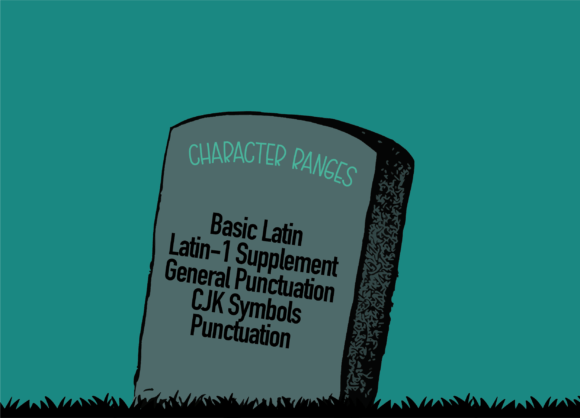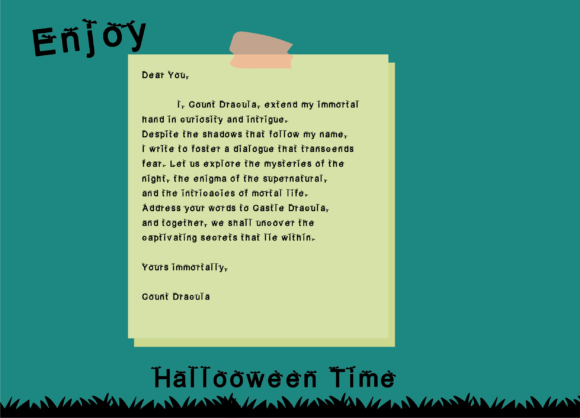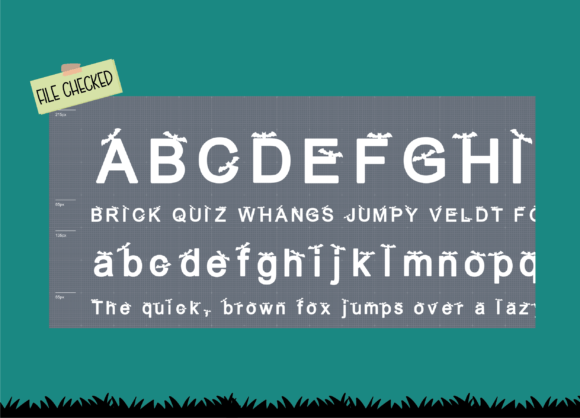
Spooky Fonts for a Killer Design
As the sun sets on a crisp autumn evening, the moon casts an eerie glow over the landscape, and the creatures of the night begin to stir. It’s the perfect time to unleash your creativity and tap into the magic of the Halloween season. For designers, this is a moment to get spooky and have some fun with typography.
Enter the Bat Night Font, a hauntingly beautiful design that’s sure to cast a spell on your audience. This font is perfect for adding a touch of vampire-inspired whimsy to your designs, and its versatility makes it a valuable tool for any designer looking to create some spooky flair. Whether you’re creating invitations, social media graphics, or even a Halloween-themed website, the Bat Night Font is the perfect addition to your design arsenal.
Bat Night Font Key Features
- Font Family: Bat Night Font is a unique, hand-drawn sans-serif font family designed specifically for use in horror, dark fantasy, and other similar themes.
- Character Set: The font includes a wide range of characters, including uppercase and lowercase letters, numbers, punctuation marks, and special symbols, making it suitable for various design applications.
- Unique Characteristics: The font’s distinctive, hand-drawn style and bold lines make it perfect for creating eerie, gothic, or supernatural atmospheres in designs, such as horror movie posters, dark fantasy book covers, and more.
Designer Review: Bat Night Font
Overall, I think the Bat Night Font has some great elements that make it stand out. ✨ The designer has done a great job of capturing the dark and mysterious feel of a bat-filled night sky. The font is perfect for Halloween-themed projects or anything that needs a touch of spookiness.
Here are some specific things that work well:
- The unique character set is well-designed and adds to the overall atmosphere of the font.
- The bold weight of the font is great for headings and titles.
- The font is highly customizable, allowing you to adjust the size, color, and spacing to fit your project’s needs.
- ⚠️ The font may be too bold for smaller text sizes, making it difficult to read.
- ⚠️ The font doesn’t include a wide range of languages, which may limit its use in international projects.
- ⚠️ Some characters may be missing or not display correctly in certain software.
Overall, I think the Bat Night Font is a great choice for projects that need a spooky or mysterious feel. While it has some limitations, the unique design and high customization options make it a great value for designers.
Getting the Most Out of Bat Night Font
To get the most out of Bat Night Font, experiment with different font sizes, colors, and spacing to create a unique and captivating visual effect.
Use Bat Night Font to add a touch of whimsy and playfulness to your designs, especially for projects related to nature, wildlife, or fantasy.
Some common use cases for Bat Night Font include:
- Designing posters and flyers for nature-themed events.
- Creating graphics and illustrations for fantasy and adventure stories.
- Adding a touch of whimsy to presentations and reports.